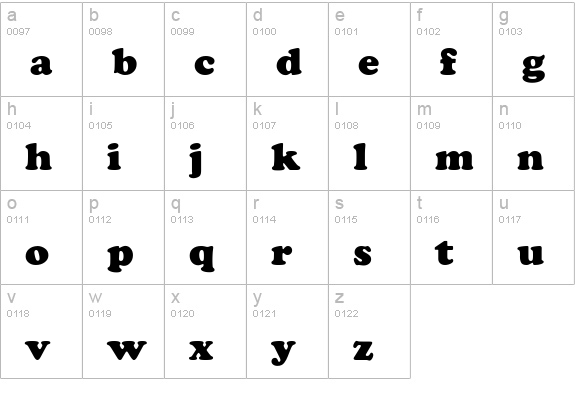
Cooper-Heavy Font Details
Cooper-Heavy is a heavy, high-impact variant in the Cooper typeface family \xE2\x80\x94 well suited to high-impact headlines, posters, and display advertising.
Cooper-Heavy is a bold and impactful font that exudes confidence and strength. With its thick and sturdy letterforms, this typeface commands attention and makes a lasting impression. The heavy weight of the letters adds a touch of gravitas, making it perfect for headlines, logos, and any design that requires a strong visual presence. Cooper-Heavy is characterized by its distinct geometric shapes and rounded corners, giving it a modern and contemporary look. The well-balanced proportions of the letters ensure legibility, even at smaller sizes. Whether used in print or digital media, this font will stand out and make a statement. What makes Cooper-Heavy even more appealing is that it is freely available to download at FontsMarket.com. This means that designers and creatives can add this powerful font to their collection without any cost. It's a fantastic opportunity to enhance your projects with a versatile and impactful typeface that will elevate your designs to new heights. So, don't miss out on this amazing font! Head over to FontsMarket.com and download Cooper-Heavy for free. Whether you're working on a logo, poster, or website, this font will make your designs shine and leave a lasting impression on your audience. Embrace the boldness and strength of Cooper-Heavy and take your creative endeavors to the next level.